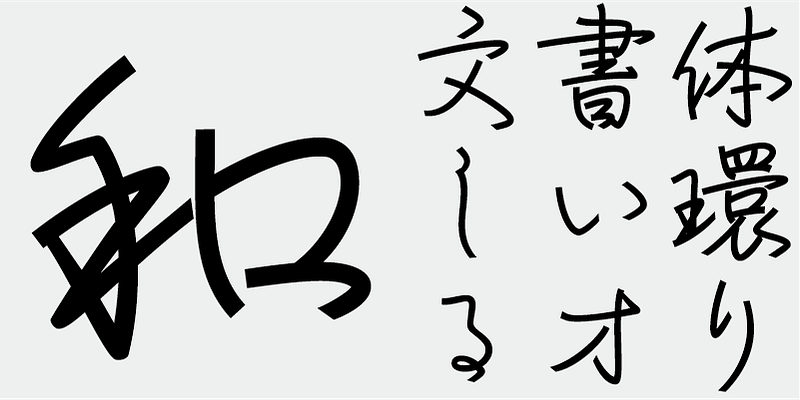
AB Ryusen Haru Font Free Download is a soft, expressive Japanese-style calligraphic typeface that captures the spirit of spring. “Haru” means “spring” in Japanese, and this font reflects that season's gentle beauty with flowing brush strokes, elegant curves, and a warm, handwritten feel. It’s perfect for seasonal designs, cultural event flyers, product packaging, restaurant branding, and any creative work that seeks to blend tradition with a fresh, poetic touch.
This font is part of the Ryusen family, known for its fluid and artistic style. AB Ryusen Haru stands out with its graceful line movement, making each character feel organic and alive. Whether you're crafting delicate invitations or branding a product with cultural flair, this font adds a sense of nature, renewal, and quiet emotion.